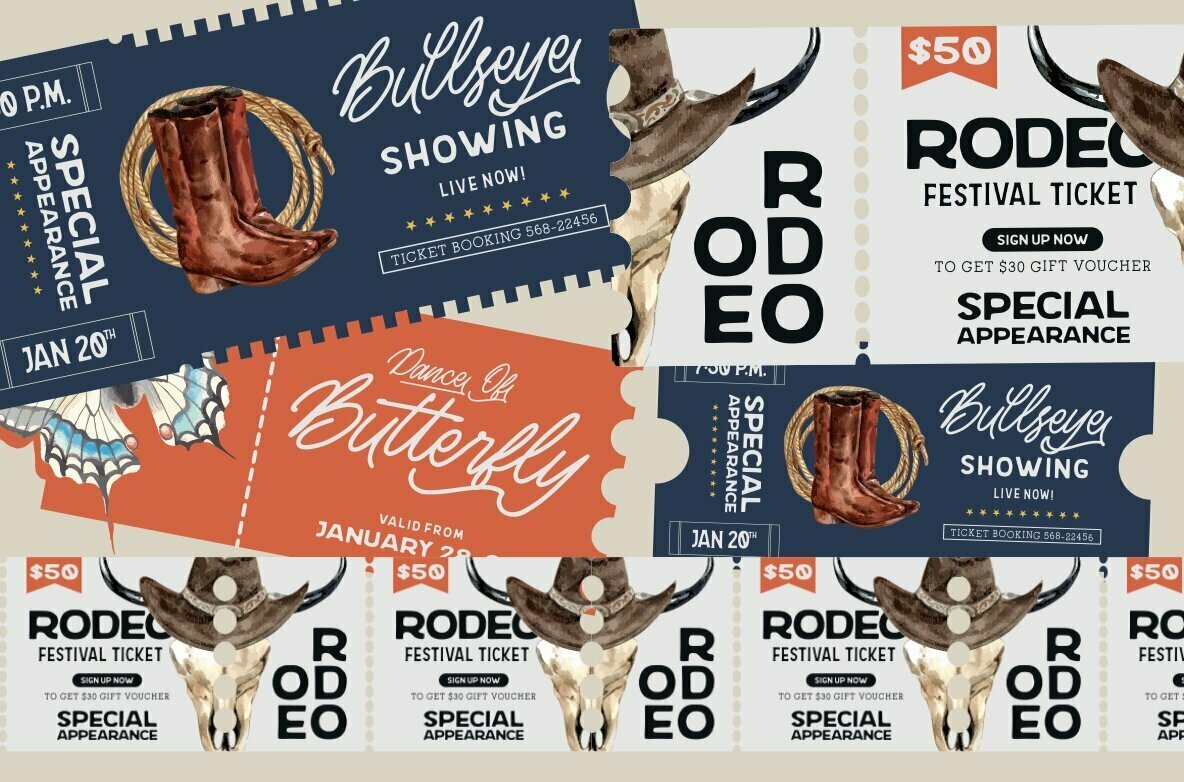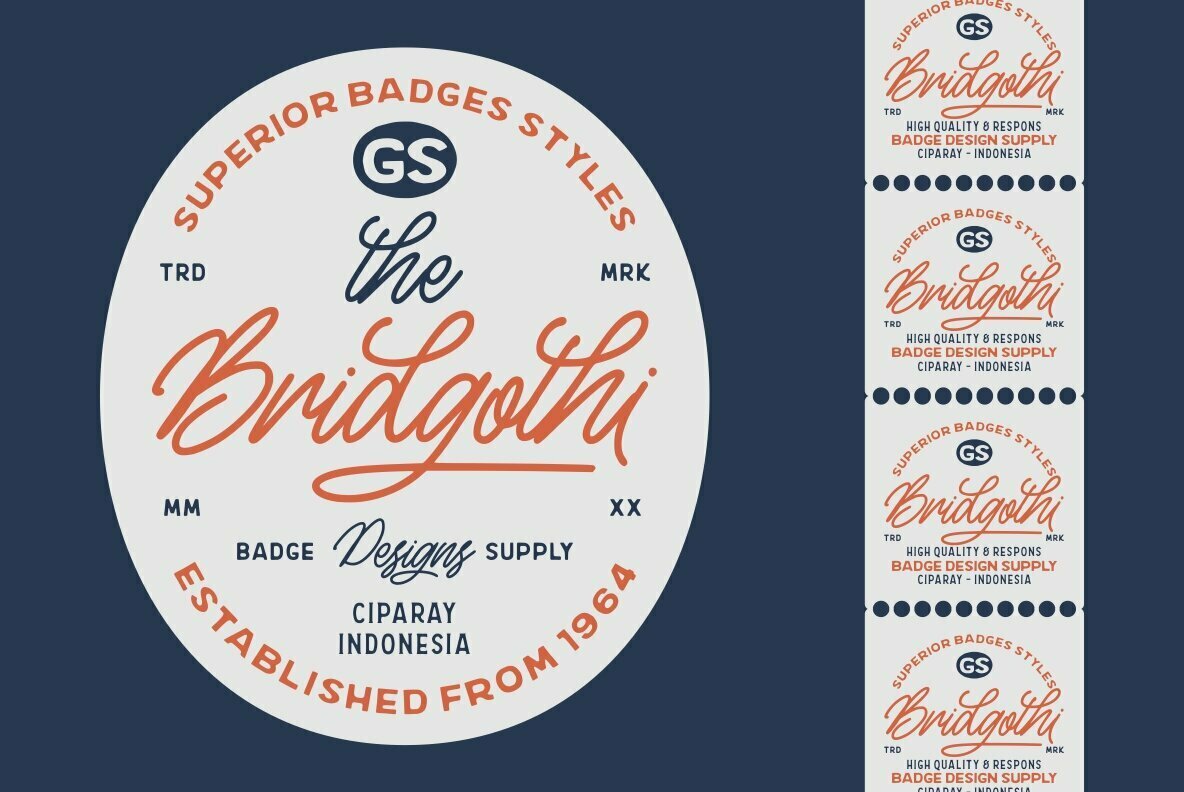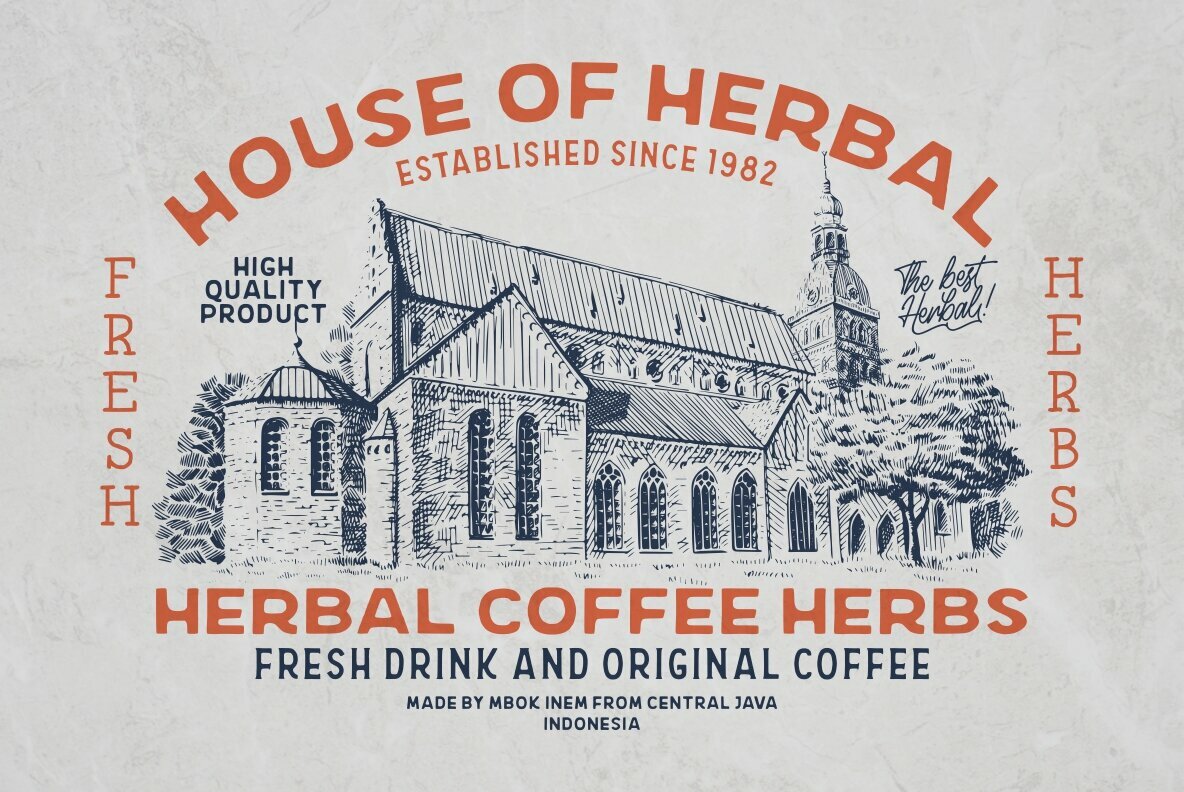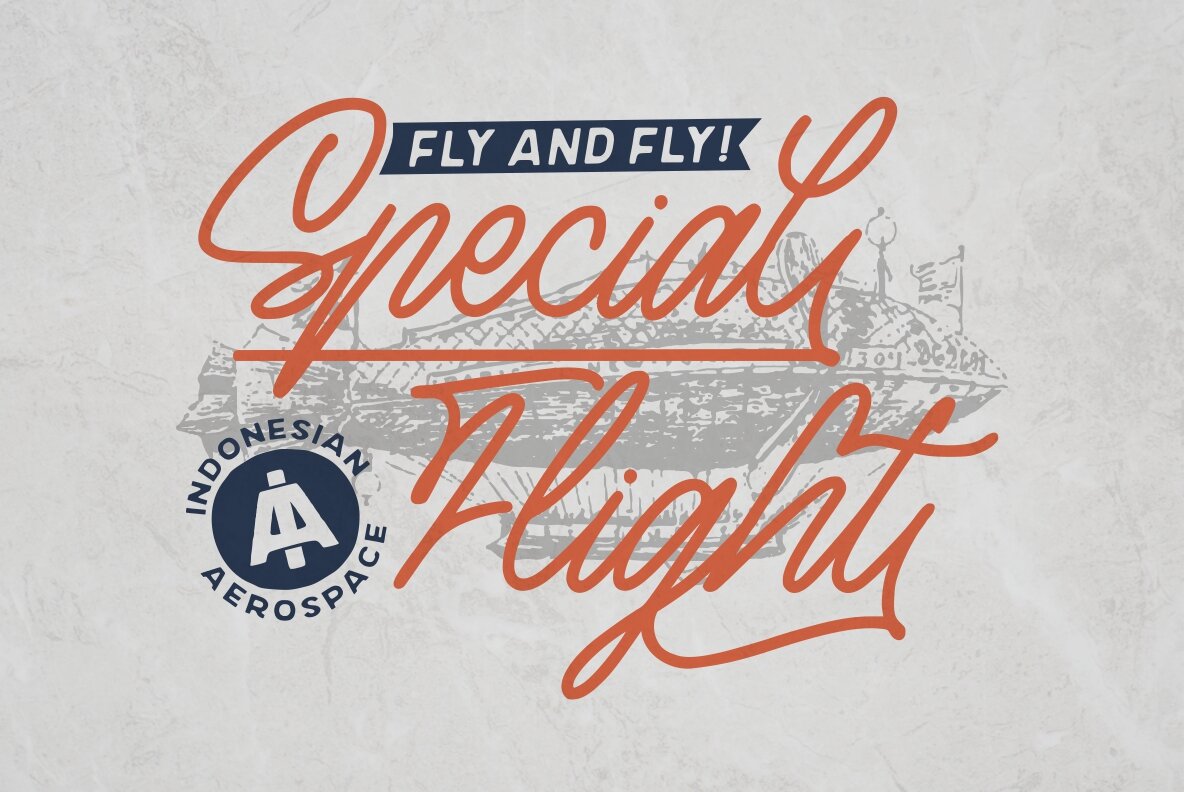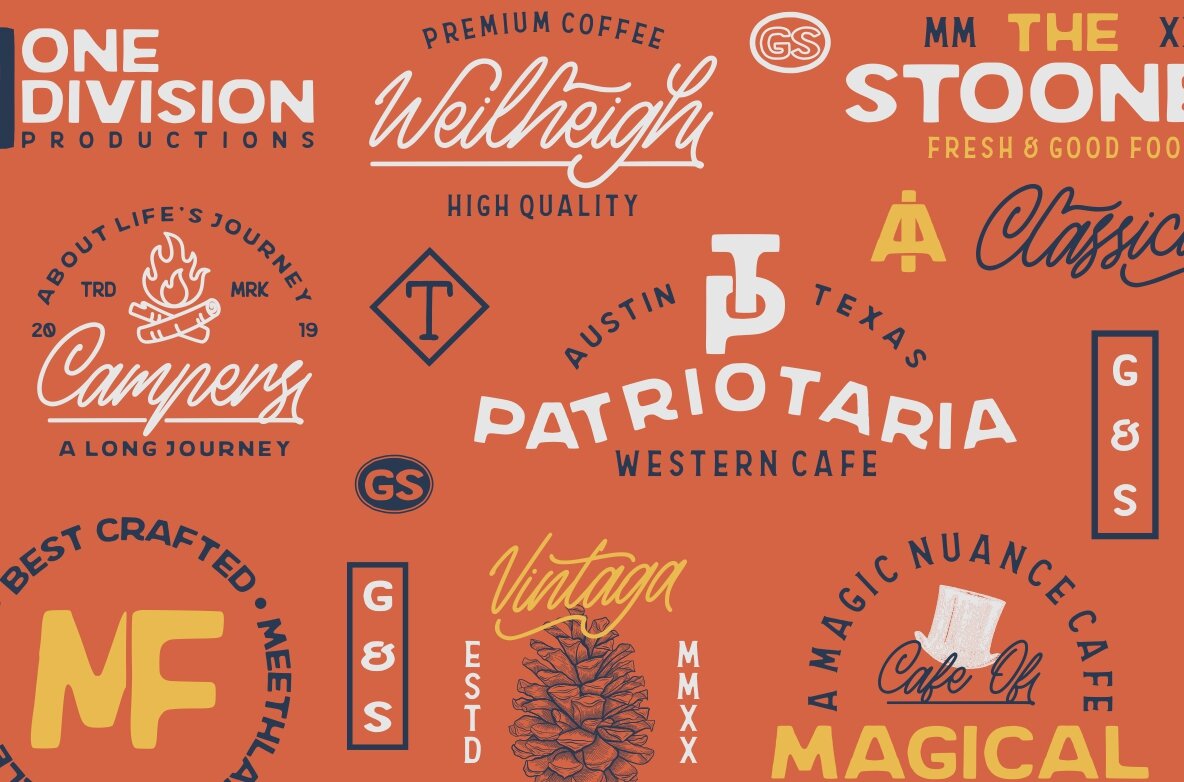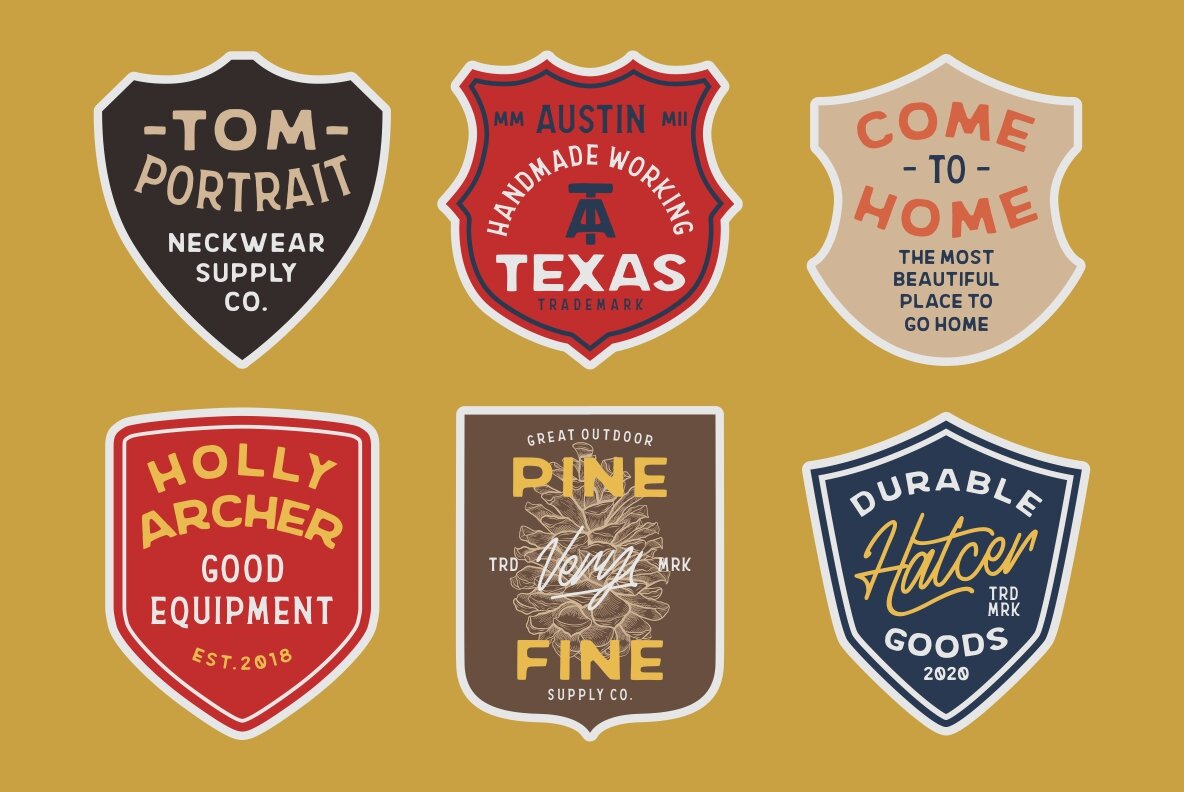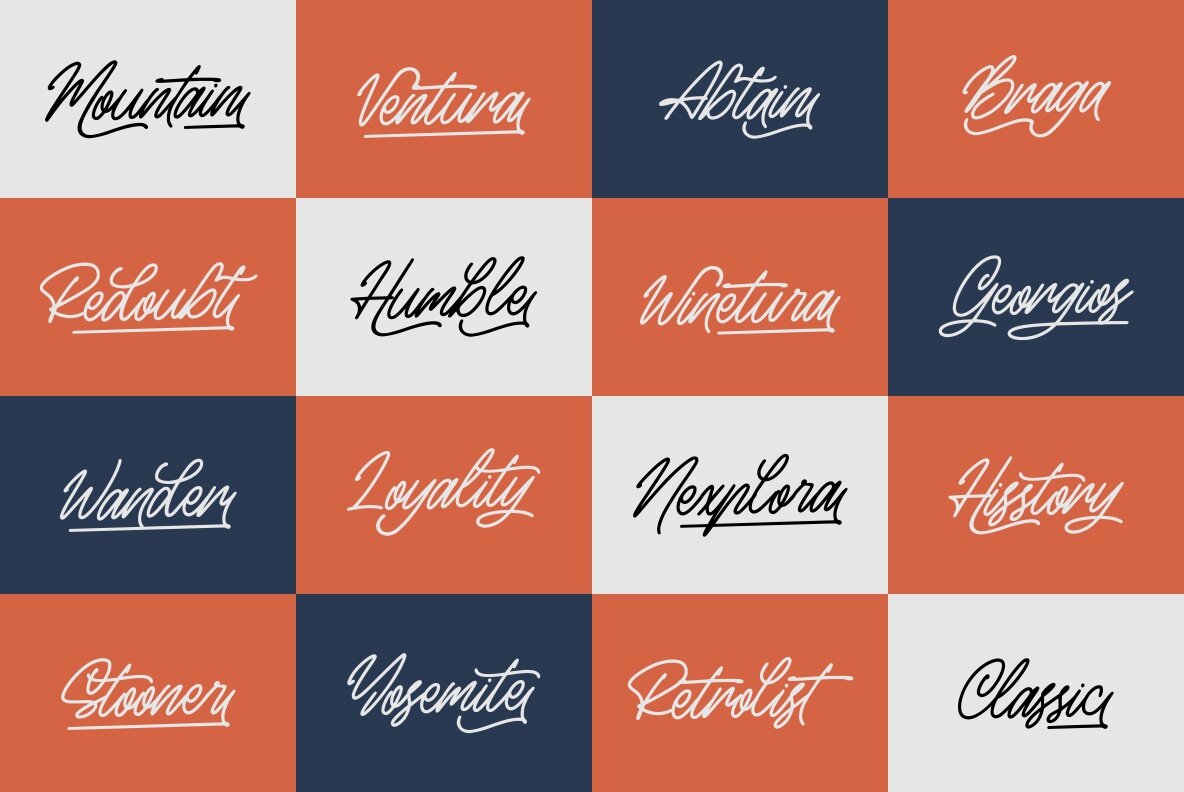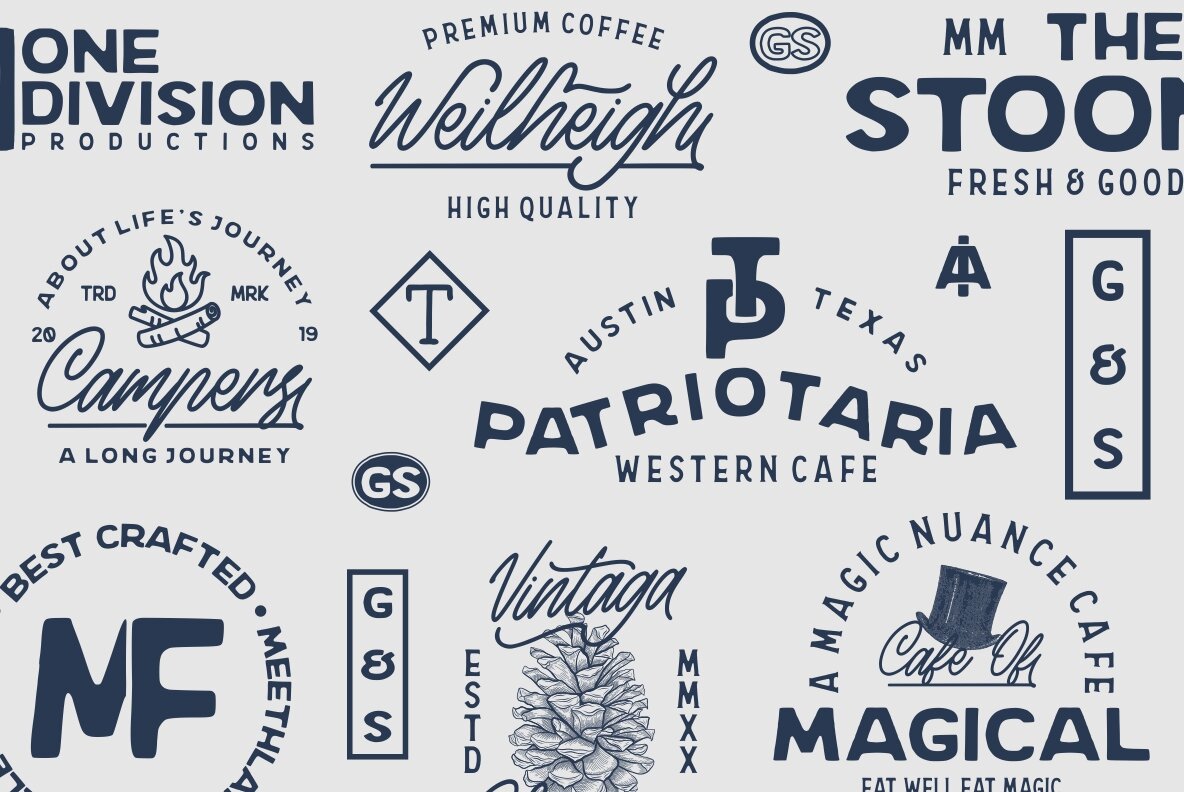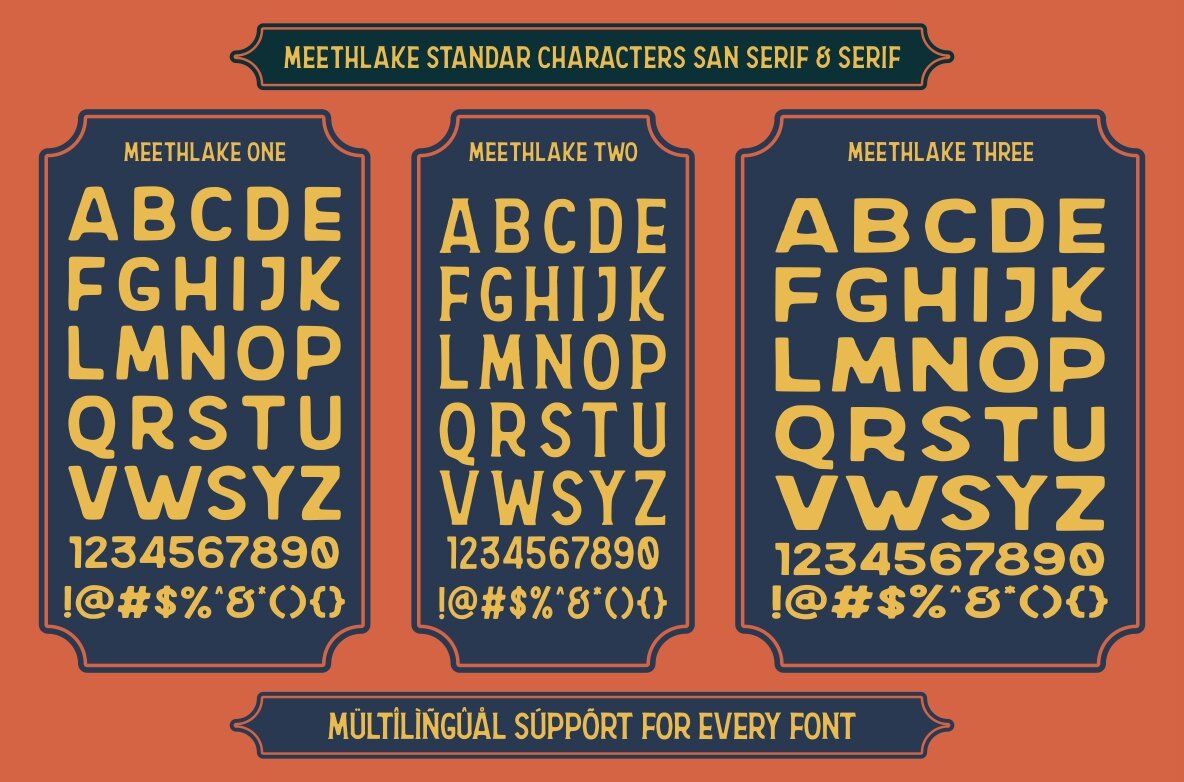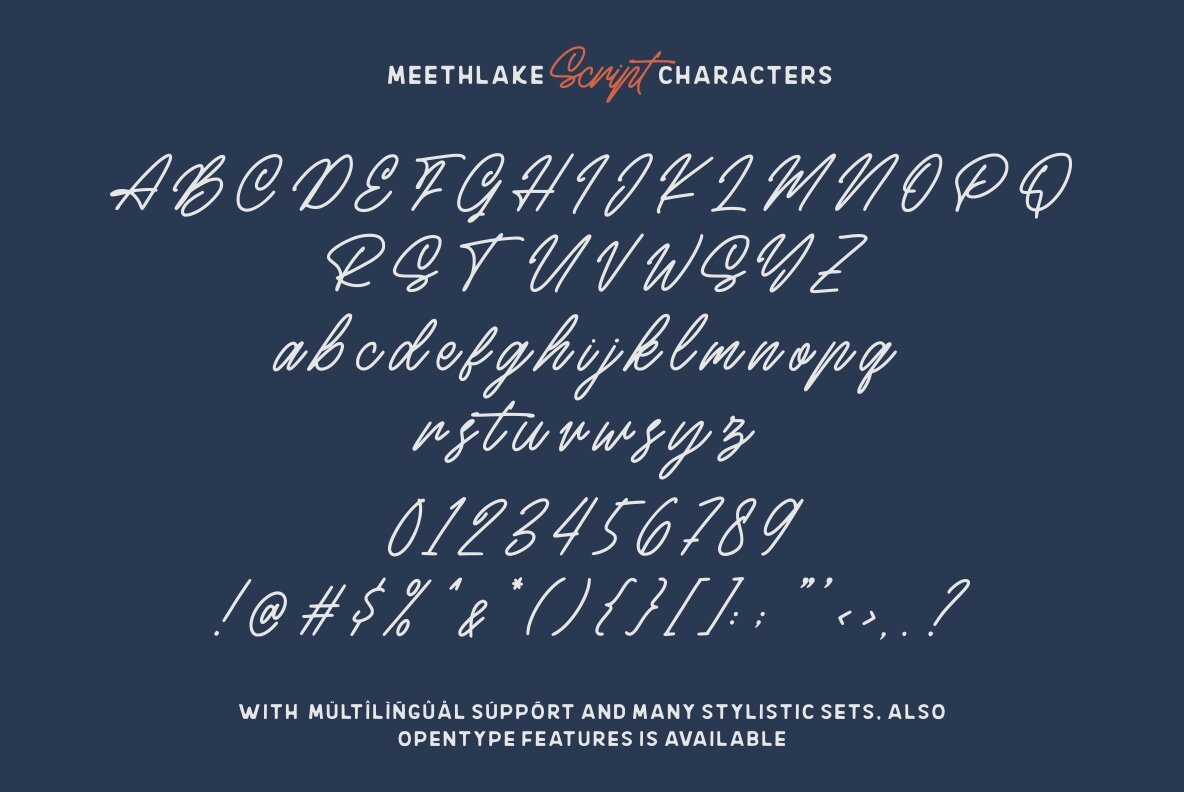
Meethlake Font
Born from the essence of vintage displays, Meethlake embodies a classic and handcrafted charm. This typeface captures the nostalgic allure ideal for designers seeking a vintage aesthetic for projects like logos or branding. Perfectly PUA encoded, Meethlake seamlessly integrates with both Mac and PC systems, ensuring versatility in its application. Meethlake is ideal for a wide array of graphic design needs, from branding and logos to posters, typography, and beyond. Let this typeface bring a touch of handcrafted vintage elegance to your creations.Meethlake: Vintage Aesthetic Typeface